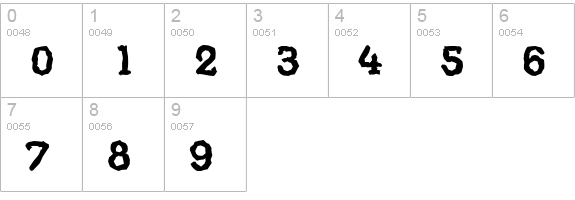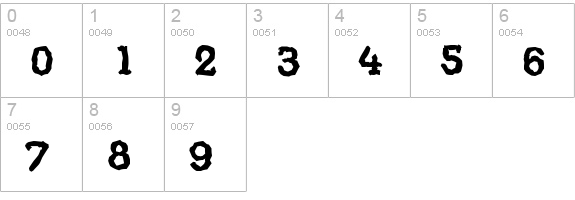
MexicoRandom-Bold Font Details
MexicoRandom-Bold is a strong, high-contrast variant in the MexicoRandom typeface family \xE2\x80\x94 well suited to headlines, attention-grabbing titles, and strong calls-to-action.
Introducing MexicoRandom-Bold font, a versatile and eye-catching typeface that is sure to make a bold statement in any design project. With its strong, modern look and unique style, this font is perfect for headlines, posters, logos, and more. The MexicoRandom-Bold font features a sleek and dynamic design that will grab the attention of your audience. What makes this font even more appealing is that it is available for free download at FontsMarket.com. Yes, you read that right - completely free! Don't miss out on the opportunity to add this striking font to your collection. Download MexicoRandom-Bold today and take your designs to the next level.